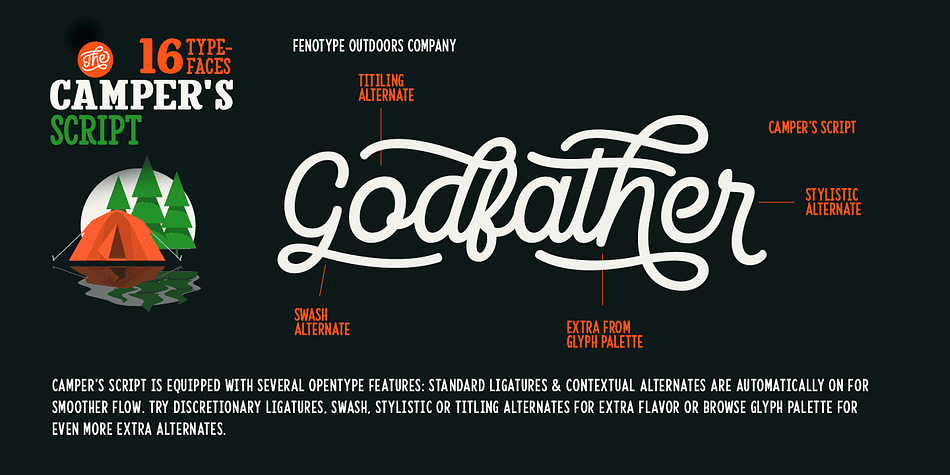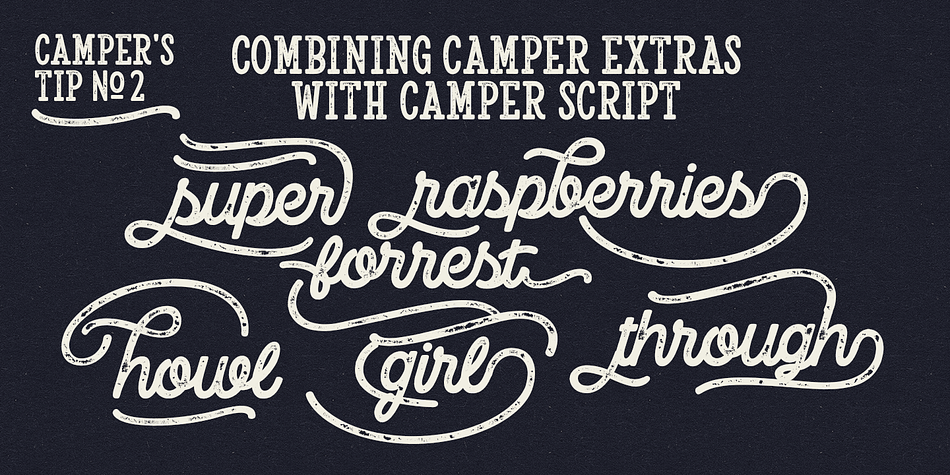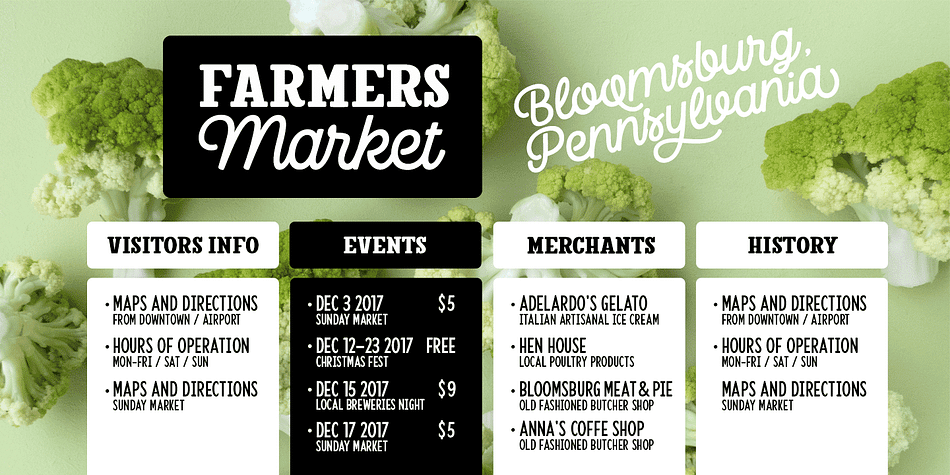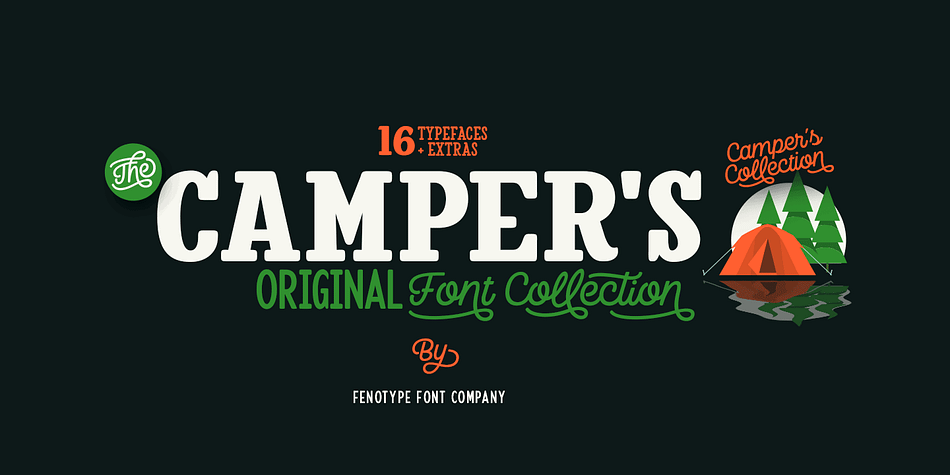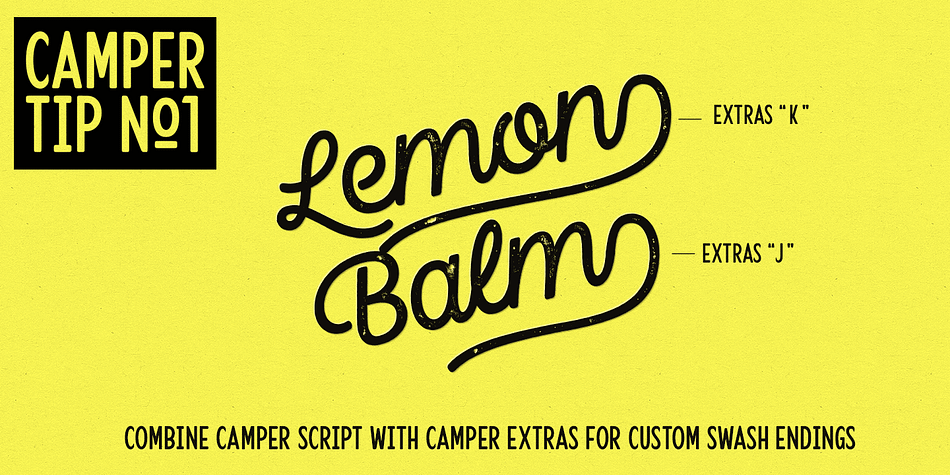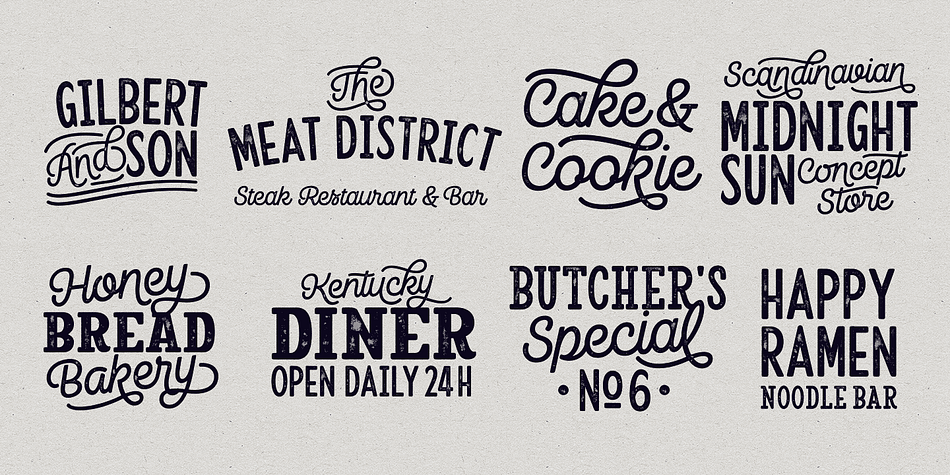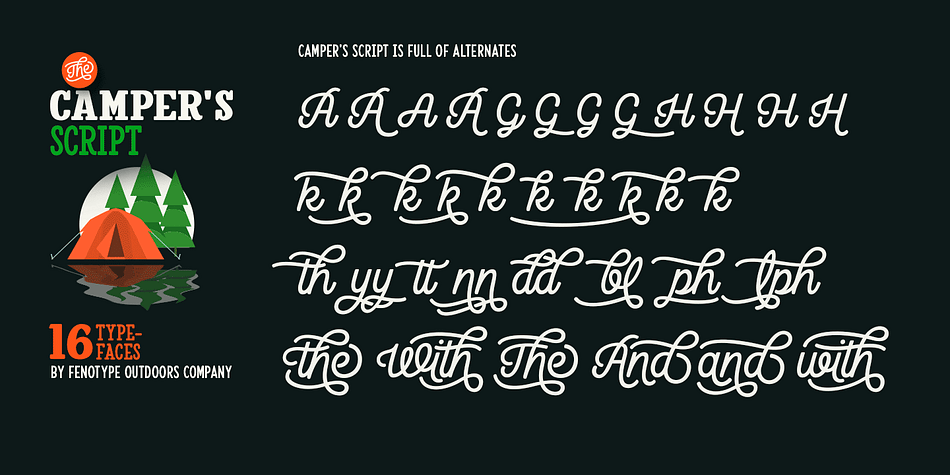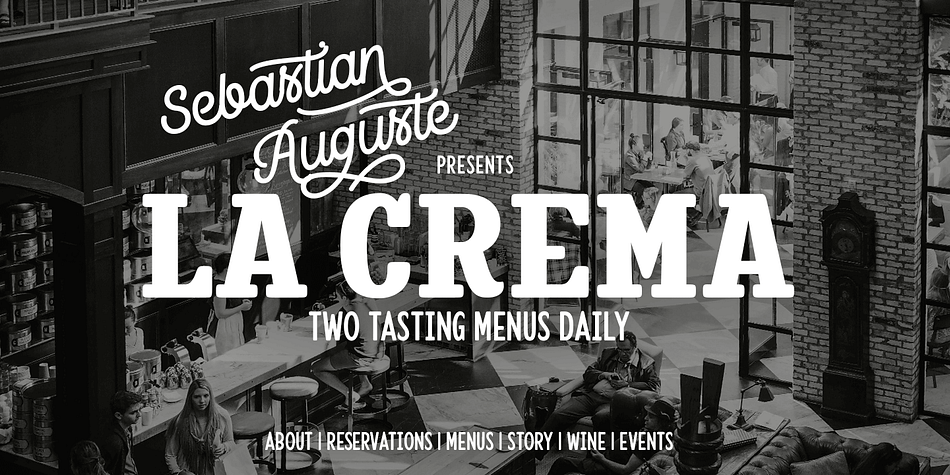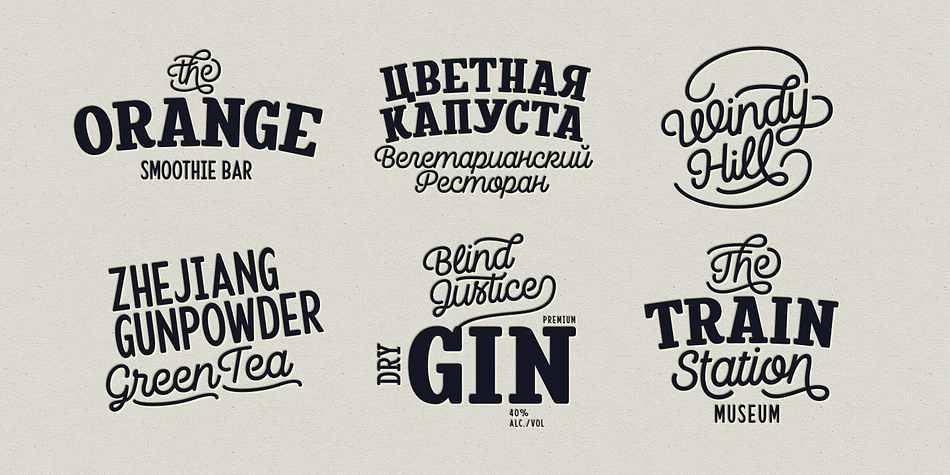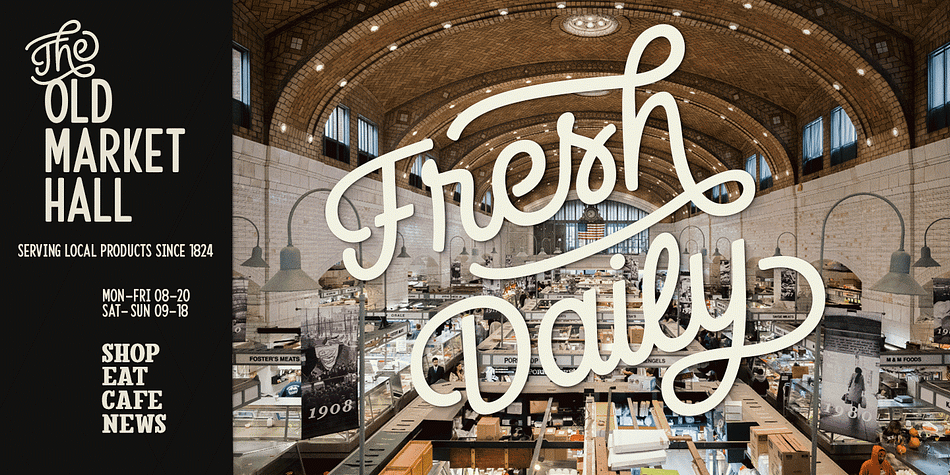
Designed by Emil Karl Bertell, Camper is a multiple classification font family. This typeface has twenty-two styles and was published by Fenotype.
Camper’s is an original font collection sixteen display fonts and extras. Camper’s core is a low-contrast connected script with three weights. In addition there are sans, serif and slab fonts.
All of Camper’s fonts have a coherent style of solid forms and soft edges. They all play well together but work by themselves too. Camper’s Print is the same family with rugged “printed” edges and print texture.
Camper Script is packed with several OpenType features: Contextual Alternates and Standard Ligatures help to maintain smooth flow while typing and they’re normally on. If you need more flashy characters try Swash, Stylistic or Titling Alternates or seek for even more Alternates from the Glyph Palette. Camper Script is PUA encoded and you can access extra characters in most graphic design softwares even without OpenType support. From Discretionary Ligatures you will find several flashier ligatures and a set of Catchwords: Access them by typing “The”, “And” or “With” with Discretionary Ligatures turned on.
Camper Extras is a pack of strokes and swashes designed to go with the script. Many strokes can also be directly combined with a letter to make a custom “swash letter”. Check out posters for more inspiration.
All of Camper’s fonts have a wide language support - even Cyrillic.
Camper is a recognizable and sturdy display pack with smooth and friendly outfit. It’s great for any display project from posters to identities and from online to print.